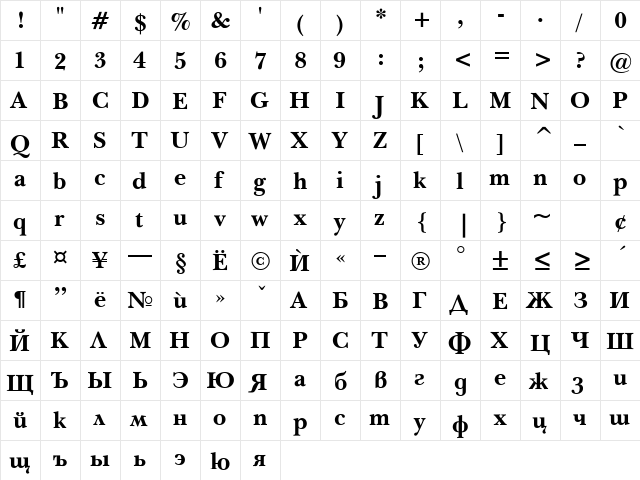
Balkan Bold
Design Context for Balkan Typeface
Balkan takes a measured approach to typography — its balanced proportions and neutral character make it a reliable workhorse for both digital and print work. Its bold stroke weight gives it real presence on the page.